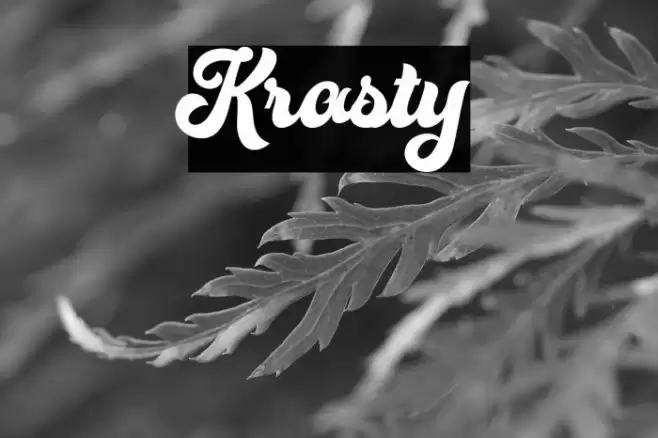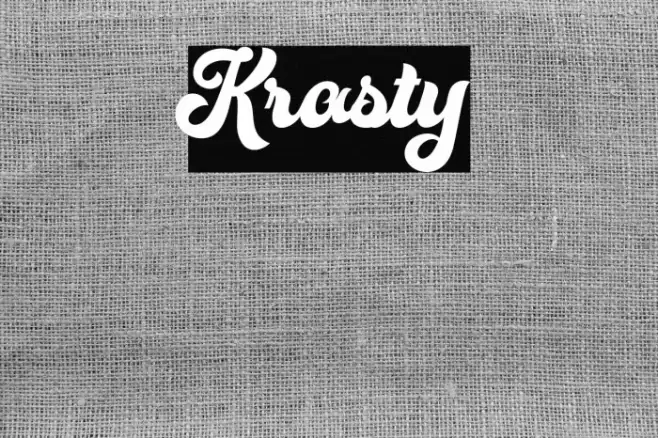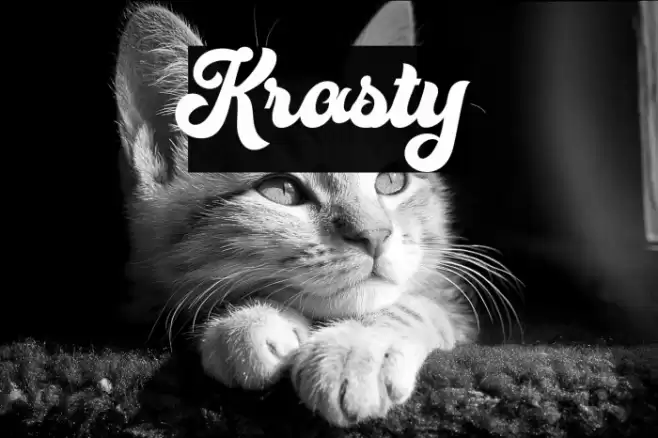
Krasty Font
Krasty Description
This font features a bold, cursive style with a strong presence. The letters are interconnected, creating a flowing and dynamic appearance. Each character is crafted with thick strokes, giving it a robust and impactful look. The uppercase letters are particularly ornate, with exaggerated curves and loops, while the lowercase letters maintain a consistent flow. Numbers and special characters follow the same stylistic approach, ensuring uniformity across all elements. The font's design is reminiscent of vintage signage and calligraphy, making it suitable for projects that require a touch of elegance and flair.
A bold, cursive font with interconnected letters and a vintage flair from Regular fonts.
- Proposed Projects: Ideal for branding, signage, invitations, and decorative projects that require a touch of elegance.
- Character Spacing: Tight
- Overall Style: Vintage
- Use Case: Logos, Headlines, Decorative text